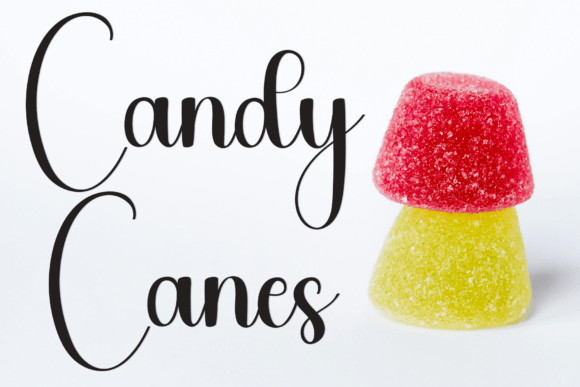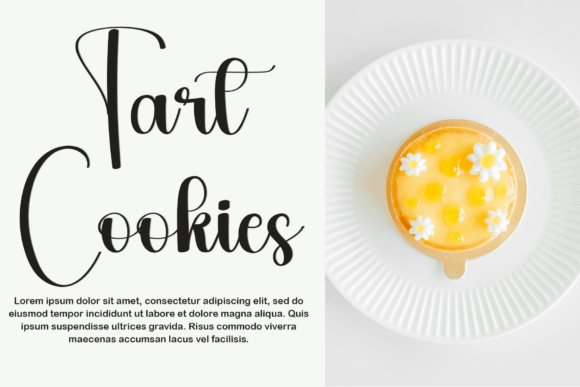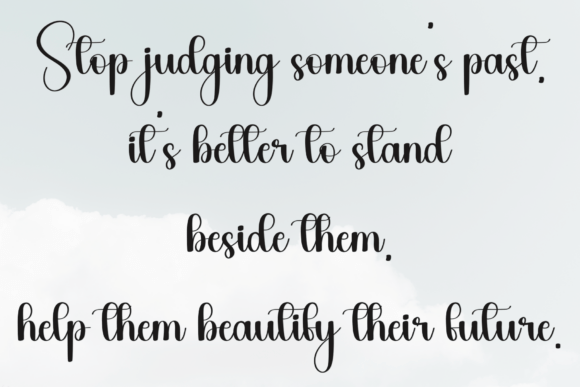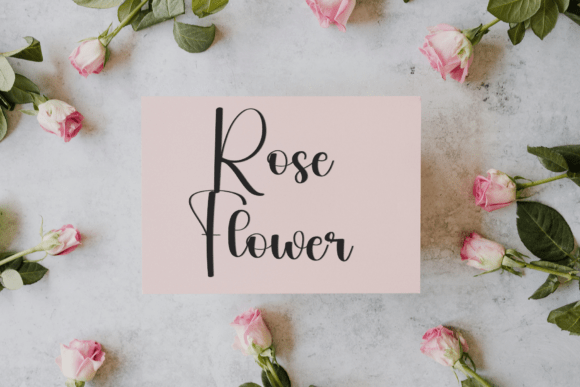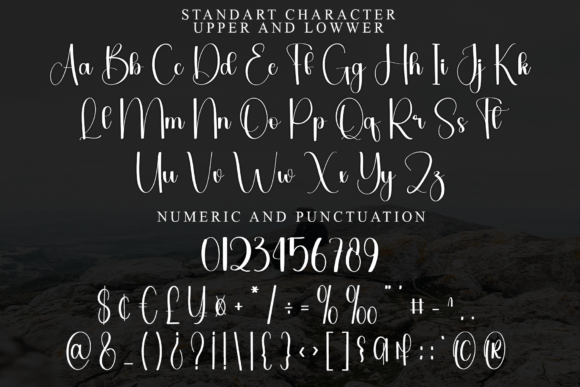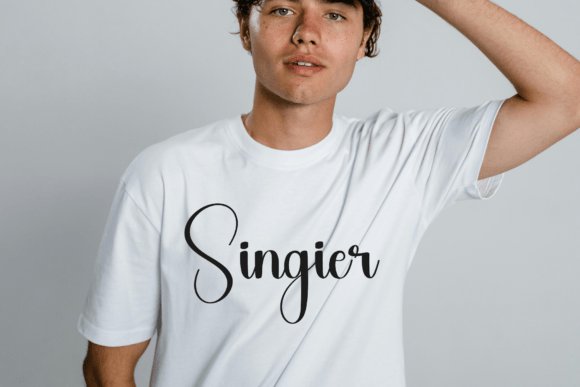
The Magic of Bluebird Font: Elevate Your Holiday Designs
It’s that time of the year again – the season of joy, giving, and endless design projects. I still remember the year I was tasked with creating a festive holiday card for a client’s family reunion. I spent hours scouring the internet for the perfect font, something that would capture the whimsy and cheer of the season. That’s when I stumbled upon Bluebird Font, a true gem that has since become a staple in my design toolkit.
An Honest Review of Bluebird Font
So, what makes Bluebird Font so special? Let’s dive into the good stuff and a few quirks I’ve discovered along the way.
• ✨ Festive and merry vibe that’s perfect for holiday designs
• ✅ Decorative elements and whimsical flair that add a touch of enchantment
• 🎉 PUA encoded for easy access to glyphs and ligatures
• 💻 Highly versatile and suitable for various design projects, from greeting cards to gift tags
• 🤔 Limited use outside of holiday-themed projects, as the font’s festive nature might not fit other design contexts
• ⚠️ May require some exploration to get familiar with the OpenType features and glyphs
The Story Behind Bluebird Font
Bluebird Font was inspired by the nostalgic feeling of childhood holidays, filled with laughter, love, and snowflakes. The designer aimed to capture the whimsy and magic of the season in a font that’s both decorative and legible. With Bluebird Font, you can bring a touch of that nostalgia to your designs and make them truly special.
What is PUA encoding, and how does it benefit Bluebird Font? PUA (Private Use Area) encoding allows for easy access to glyphs and ligatures, making it simple to use the font’s decorative elements.
Is Bluebird Font suitable for body text or long-form content? While Bluebird Font is beautiful, it’s best suited for headlines, titles, and short text. Its decorative nature might make it less readable for long-form content.